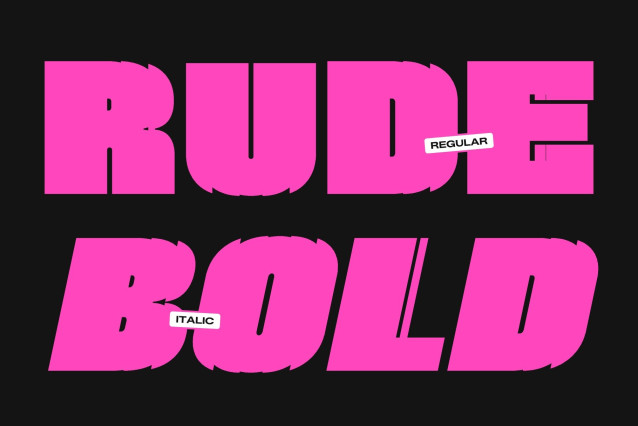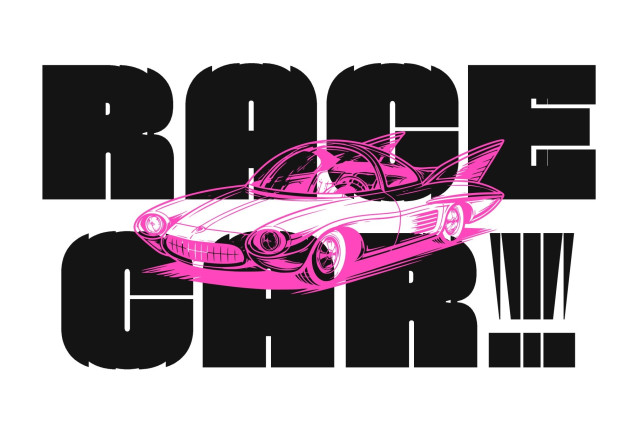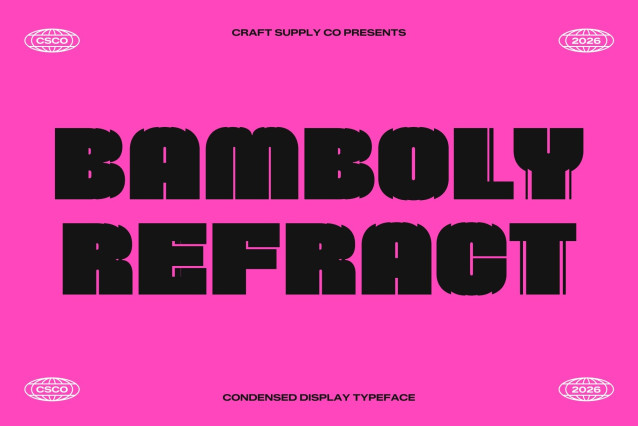
Bamboly Refracted Font
Bamboly Refracted – Bold Sans Serif Font: Where Modern Precision Meets Futuristic Refraction
Strong Contemporary Forms with Professional Clarit
This is a bold sans serif font crafted to deliver strength, clarity, and a modern professional presence. Designed to command attention, its powerful structure and clean contemporary forms create a visual identity filled with confidence, precision, and refined modern style.
Refracted Effect with Futuristic Fragmentation
This font features glitch-inspired light refraction details that create fragmented cuts, geometric slices, and layered distortions across the letterforms. This futuristic effect introduces movement, digital depth, and experimental visual energy while preserving the font’s clean and polished structure. The result is a sleek and visually immersive appearance that feels modern, technological, and elegant.